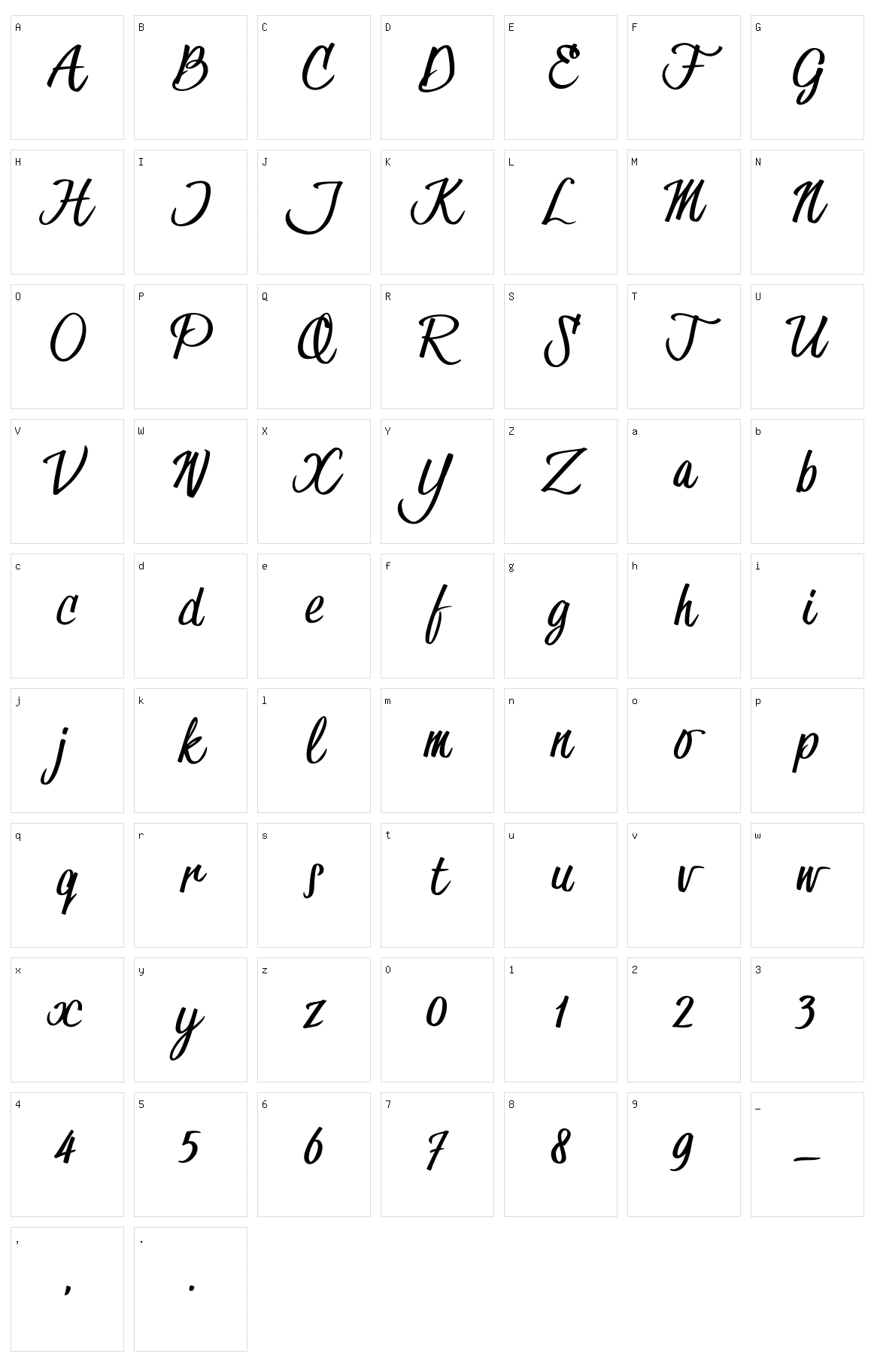
The free font Hesster Moffett is carefully designed by JOEBOB graphics, showcasing a thoughtful balance of creativity and usability and falls under the Script font style. When you download the ZIP file, it contains only 540.78 KB of font files, making it lightweight and quick to download. Please review the license details below to understand permitted usage and distribution rights. If license information is not available, we recommend using this font for personal projects only or contacting the author directly for commercial usage permissions.